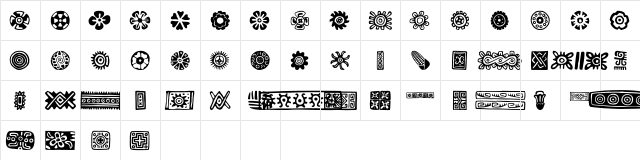
PreColumbian Ornaments One Regular
Design Context for PreColumbian Ornaments One Typeface
PreColumbian Ornaments One is built around its visual character rather than neutral utility — its distinctive forms are designed to make an impression at display sizes.
Font Pairing: Pair with a clean neutral sans-serif for body copy to let PreColumbian Ornaments One's character lead without overwhelming the composition.
Pro Tip: Use PreColumbian Ornaments One exclusively at display sizes — it was designed to be seen, not read at length. Let a neutral companion handle body copy.